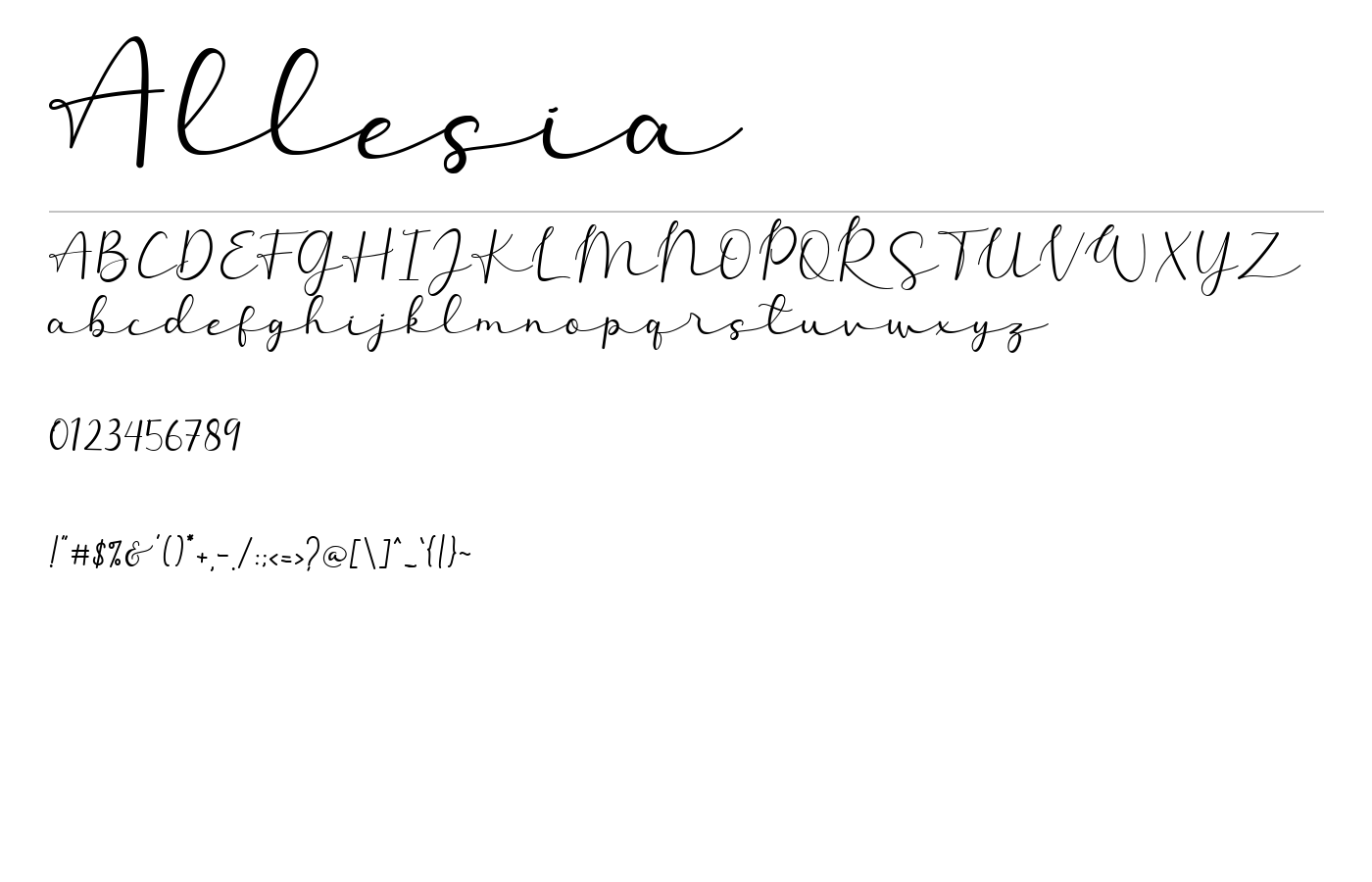
Allesia is an elegant handwritten script font characterized by its fine, flowing lines and airy, delicate letterforms. Its light weight and graceful curves give it a personal, artistic feel, making it ideal for wedding invitations, fashion branding, and feminine editorial designs that seek a touch of sophistication and charm. This font’s unique style works beautifully in headlines and decorative uses where a refined, handcrafted impression is desired.
Allesia Font
About Allesia Font
| Font family | Allesia Font |
| Designer | AEN Creative Studio 2020 |